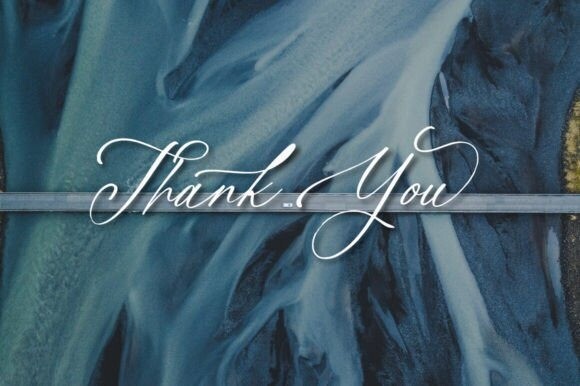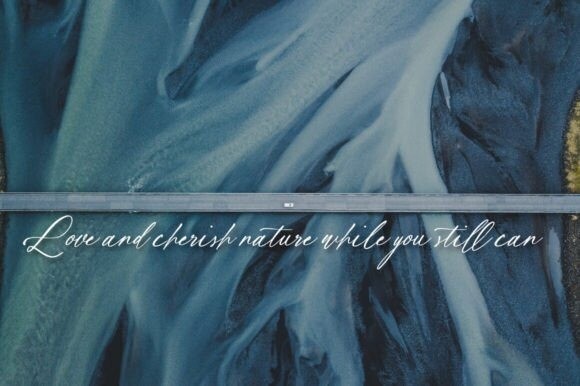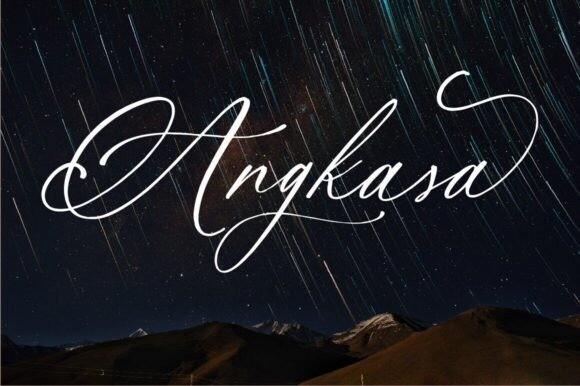
Angkasa Font
Designer: Wahib Studio
Angkasa Font is a single, monoline font designed for the words to flow as one continuous fishing line. This font is perfect for making fashion branding logos, book titles, logo photography, watermark photography, social media, wedding invitations, taglines, headlines, and of course signatures